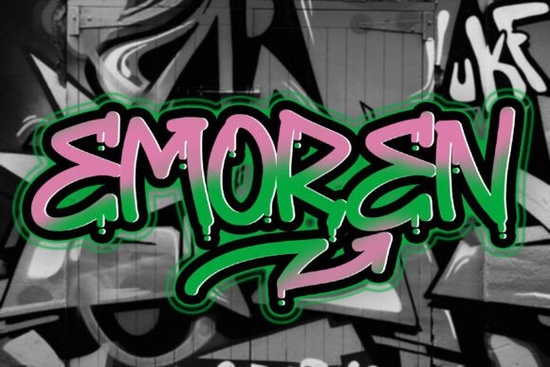
If you're looking for a font that brings street-style energy to your designs without needing to pick up a spray can, Emoren Font might be exactly what you need. This handbrush graffiti typeface features bold, dripping letterforms that feel raw and expressive ideal for posters, apparel, stickers, or any project where you want to stand out with attitude.
Unlike rigid, geometric display fonts, Emoren leans into organic imperfection. Each character looks like it was brushed on quickly but confidently, with subtle variations in stroke width and those signature drips that give it an authentic urban edge. It’s not just decorative it’s functional for creators who want personality without sacrificing readability at larger sizes.
What kinds of projects work best with Emoren?
Because of its high-impact visual style, Emoren shines in contexts where boldness matters:
- Streetwear and merch design – Think T-shirts, hoodies, or skate decks where typography is part of the statement.
- Event posters and flyers – Music shows, art exhibitions, or underground pop-ups benefit from its gritty aesthetic.
- Social media graphics – Quotes, announcements, or promo banners that need to grab attention fast.
- DIY craft projects – Vinyl cutting, stencils, or hand-painted signs where you want a hand-done look without doing it by hand.
It’s worth noting that Emoren works best as a headline or display font. You wouldn’t set body text in it but that’s true of most graffiti-inspired typefaces. Its strength lies in making a single word or short phrase unforgettable.
How does Emoren compare to other display fonts?
If you’ve browsed Creative Fabrica’s display font collection, you’ve probably seen options like Dino Roar, which leans playful and chunky, or Cheer, with its bouncy, retro cheerleader vibe. Then there’s Vila Valent, offering elegant swashes more suited to invitations than alleyway murals.
Emoren sits in a different lane altogether. While Summer Vintage evokes sun-faded nostalgia, Emoren feels immediate, urgent even rebellious. It doesn’t whisper; it shouts. That makes it a great complement (not a replacement) for softer or more structured fonts in your toolkit.
If you’re building a brand identity that leans into authenticity, youth culture, or DIY ethos think indie record labels, skate shops, or activist campaigns Emoren adds visual credibility without feeling costumed.
Is Emoren easy to use for beginners?
One tip: because of the drip details, avoid using it too small. Below 36pt, those nuances can blur or disappear, especially in print. For digital use, test it at various resolutions to ensure clarity.
Also, pair it wisely. Since Emoren already carries so much visual weight, keep supporting elements minimal. A clean sans-serif (like Helvetica or Montserrat) for subtitles or captions creates balance without competing.
This font is especially useful if you:
- Sell custom apparel or prints and need standout typography.
- Create content for music, sports, or youth-oriented brands.
- Prefer handcrafted aesthetics but lack illustration time.
- Want to add texture and movement without layering multiple effects.
Creative hobbyists will appreciate how quickly it transforms a plain layout into something with character. Small businesses can use it to differentiate packaging or promotional materials in crowded markets like craft fairs or online marketplaces.
Just remember: while it’s versatile within its niche, Emoren isn’t a one-size-fits-all solution. Save it for moments when your message deserves to drip with confidence.
- Is my project meant to feel bold, urban, or expressive?
- Will the font appear large enough to show its details?
- Do I have a clean secondary font ready for contrast?
If you answered “yes” to most of these, Emoren could be the spark your next design needs.